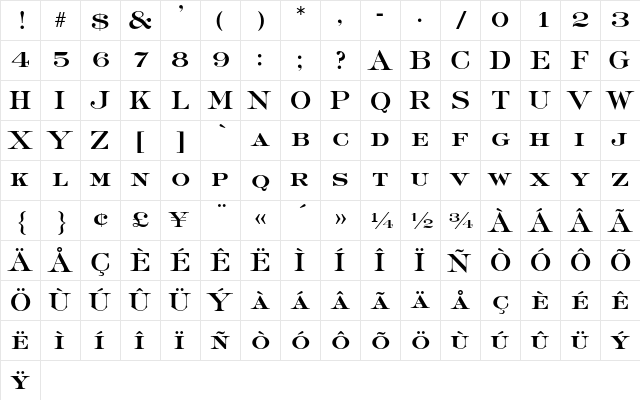
Sackers Roman Heavy AT Regular
Design Context for Sackers Roman Heavy AT Typeface
Sackers Roman Heavy AT is a composed and adaptable typeface that performs quietly and consistently across a wide range of design contexts.